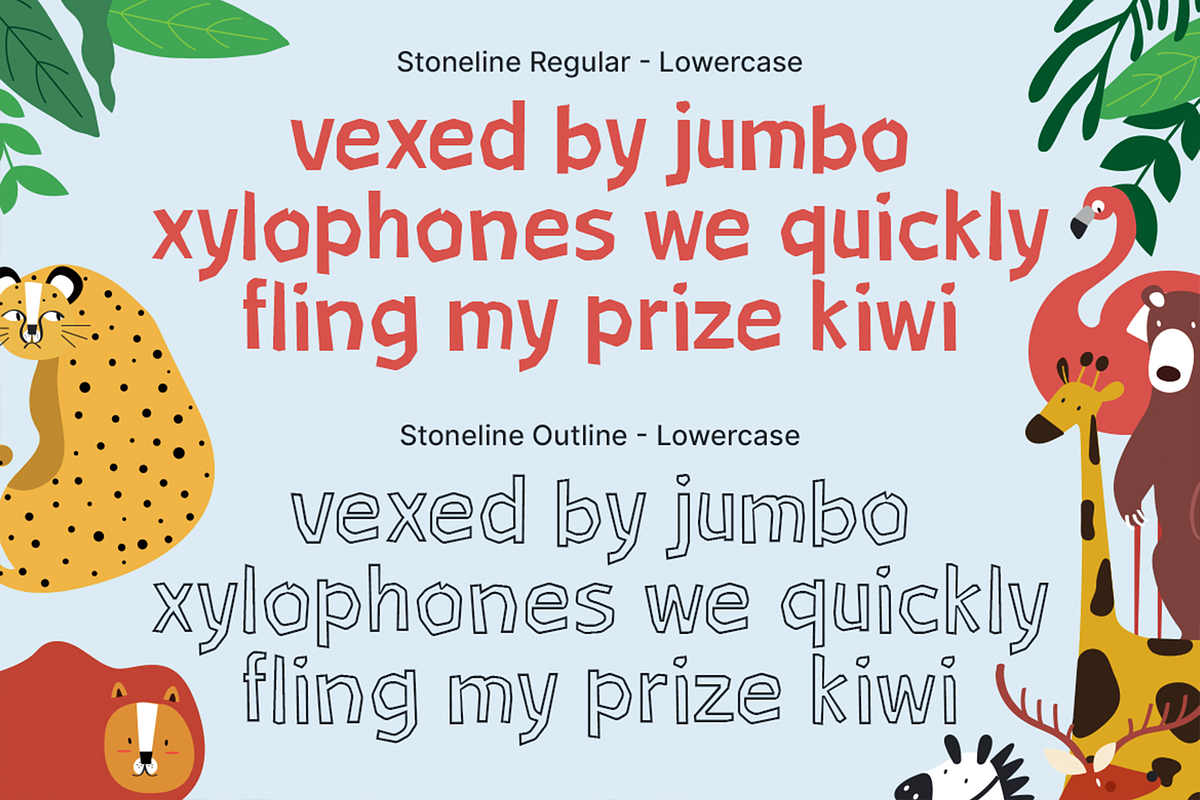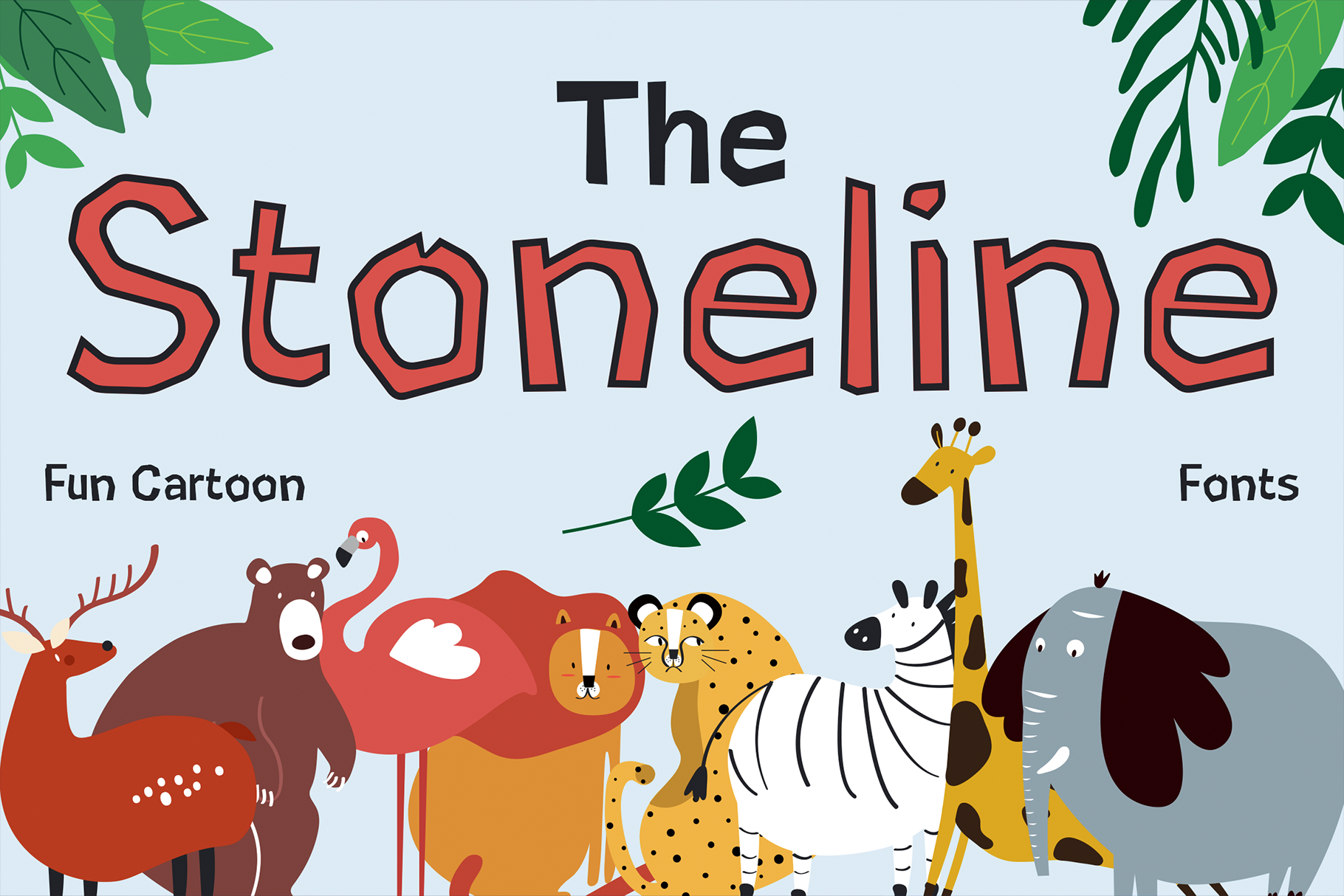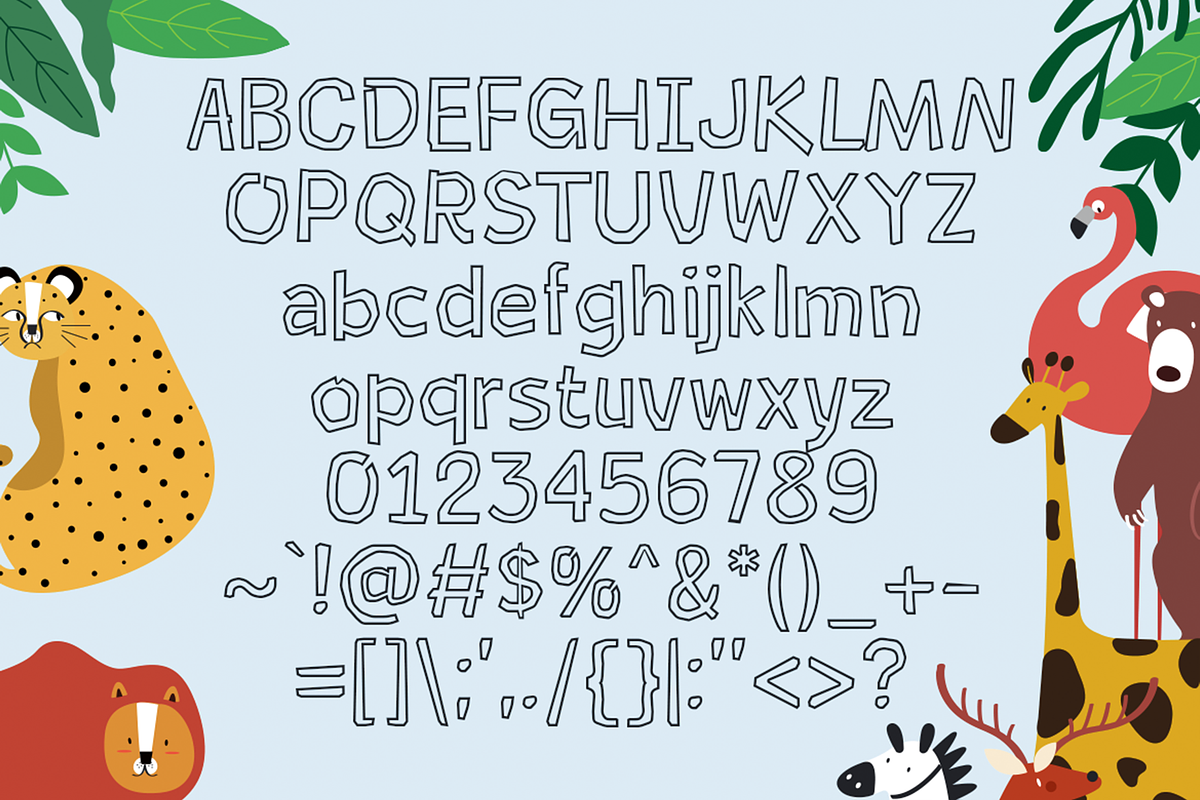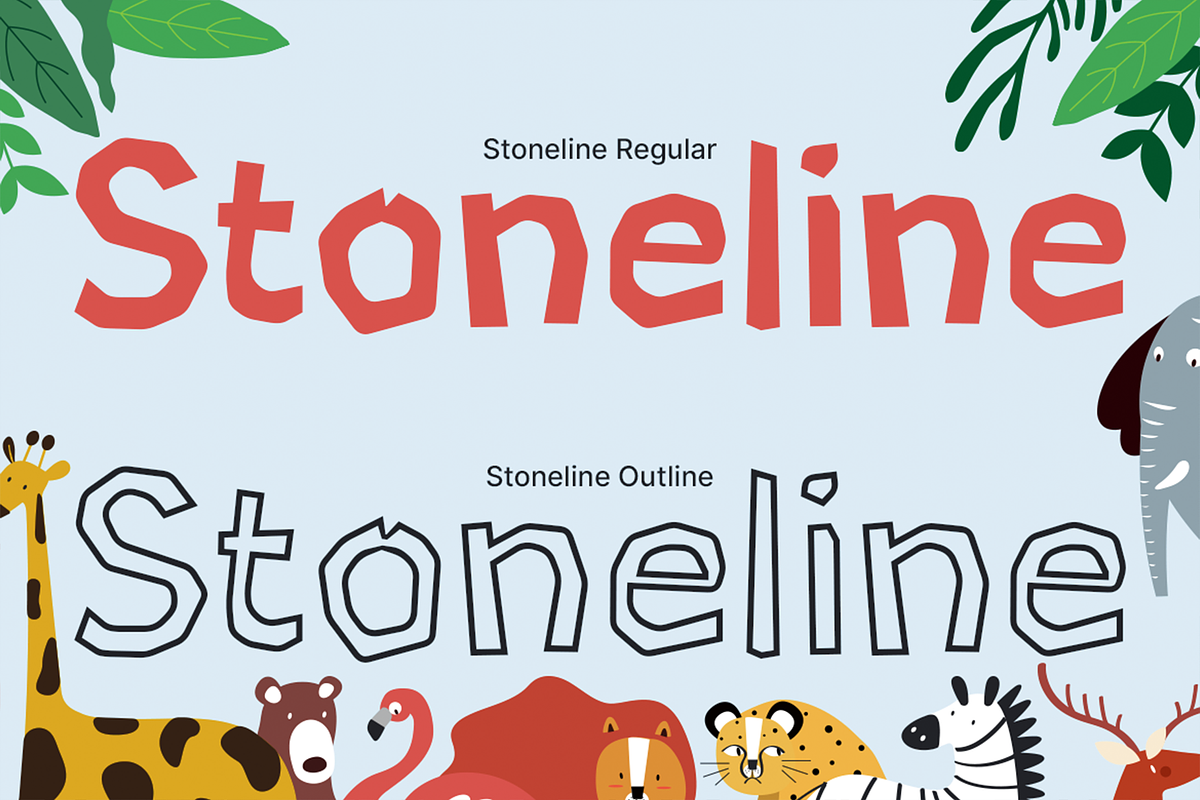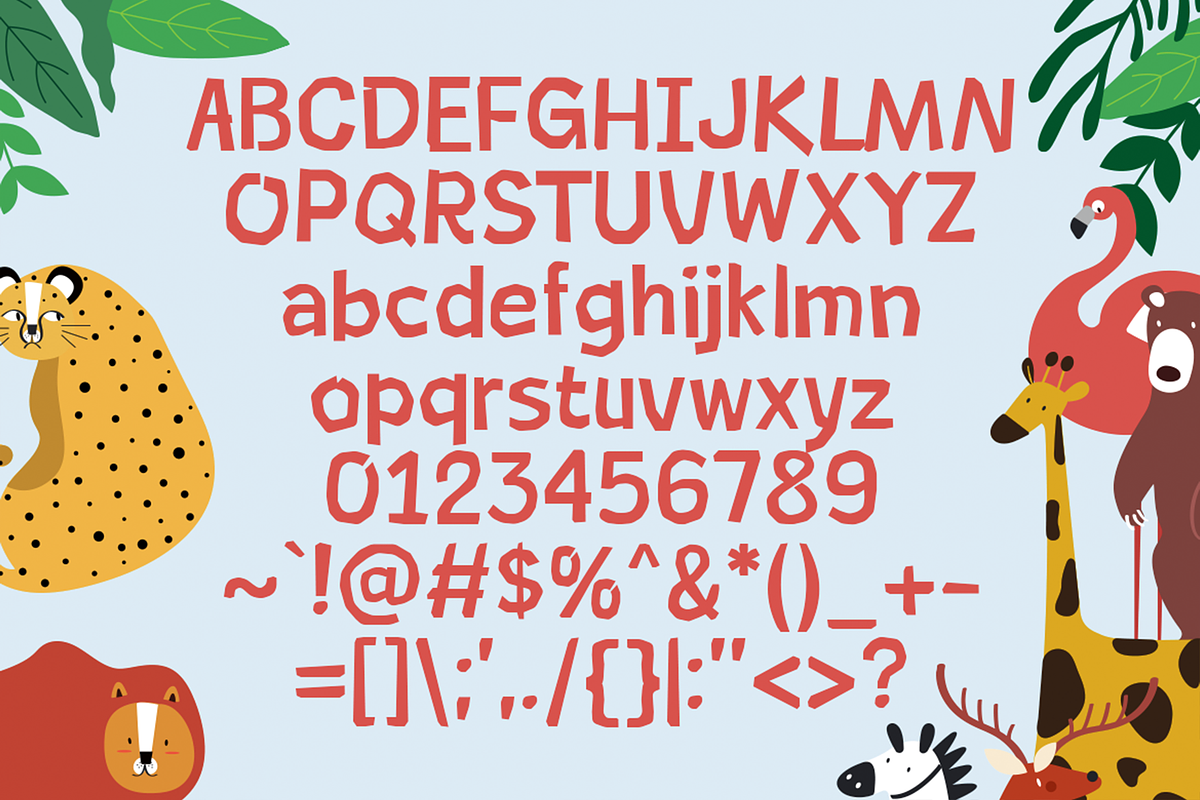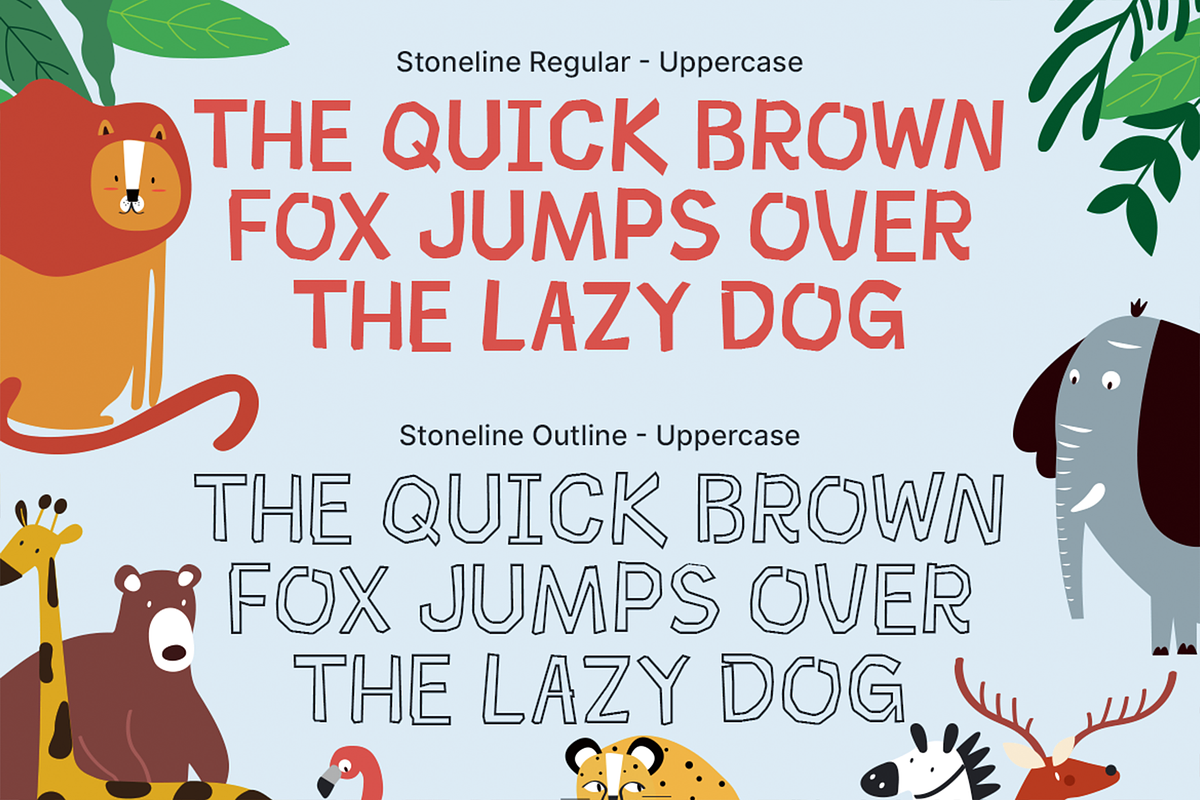
Stoneline - Fun Cartoon Fonts
Meet Stoneline – a delightful duo font that brings the whimsical charm of the zoo and the adventurous spirit of the safari straight into your designs! Inspired by playful jungle animals and childlike wonder, Stoneline is the perfect typeface for anything fun, friendly, and full of character.
Crafted in two quirky cartoon styles, this font duo captures a hand-drawn, slightly rugged look that mimics the spontaneous joy of kids' doodles and zoo signs. Whether you're working on children’s books, educational posters, birthday invitations, product packaging, or playful branding, Stoneline gives your work that wild, joyful spark.
Featuring:
- Two styles to mix and match for more playful variation
- A fun and irregular outline that mimics natural cartoon strokes
- Friendly letterforms that are perfect for children’s content
- Ideal for zoo-themed, safari, animal, and nature-inspired projects